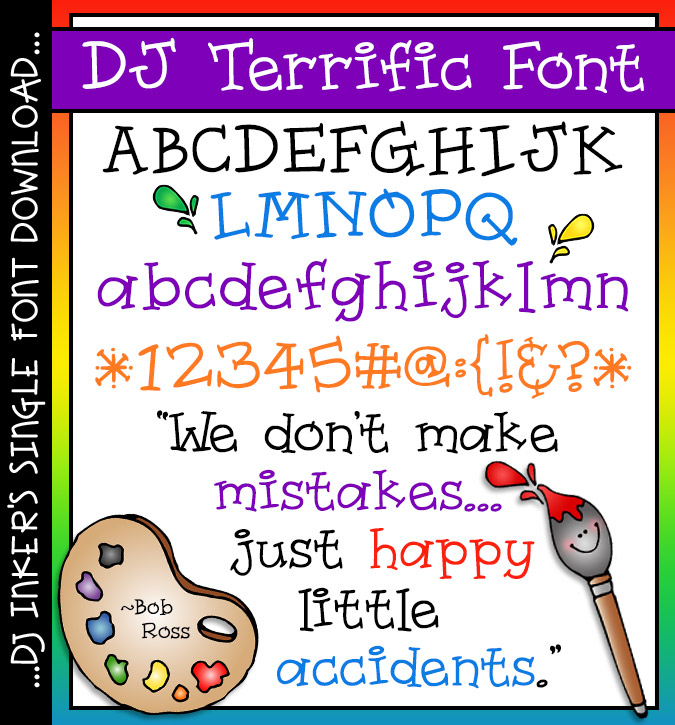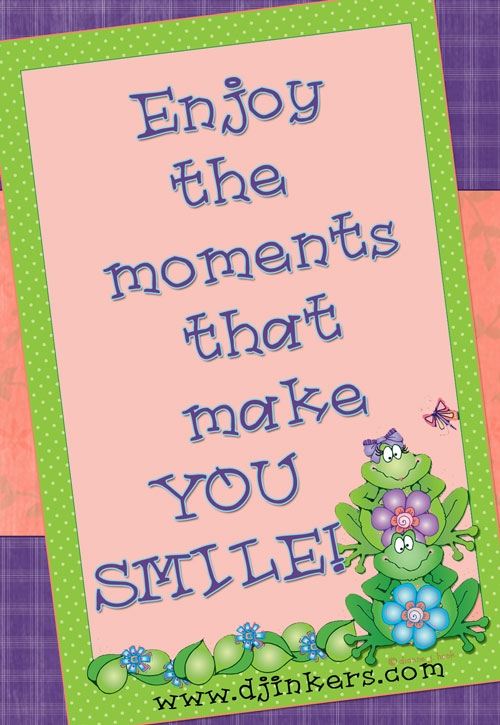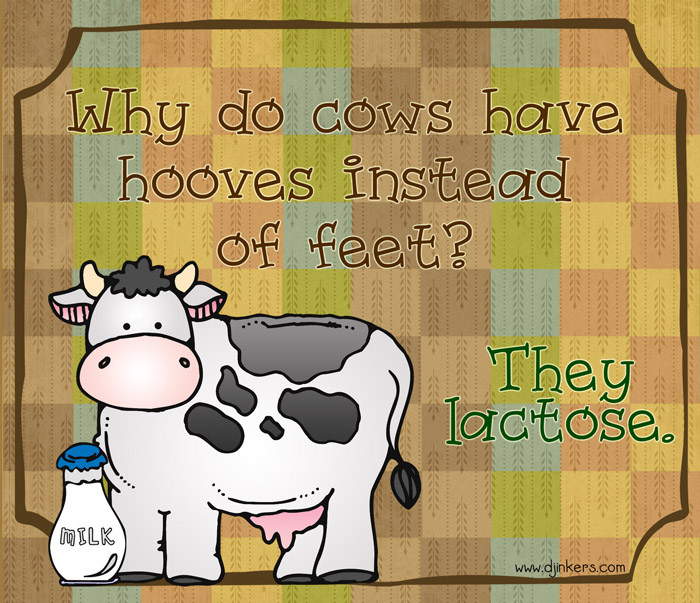
A terrific serif font with a touch of bounce and whimsy by DJ Inkers
DJ Terrific Font Download
A terrific serif font with a touch of bounce and whimsy by DJ Inkers
DJ Terrific Font Download
Tired of boring fonts that blend into the background? Get ready to add some serious personality to your projects with this playful new font by DJ Inkers.  DJ Terrific combines a classic serif finish with a touch of bounce and whimsy that will make your projects pop.  Type-up a smile today!